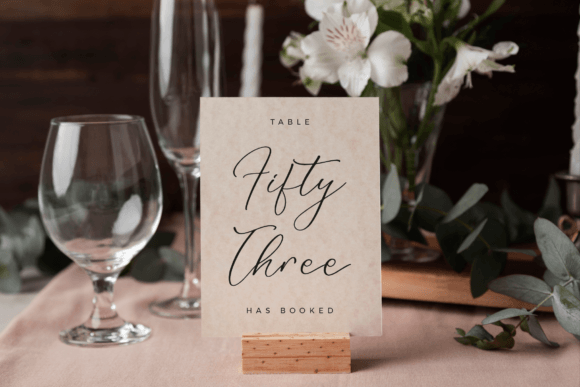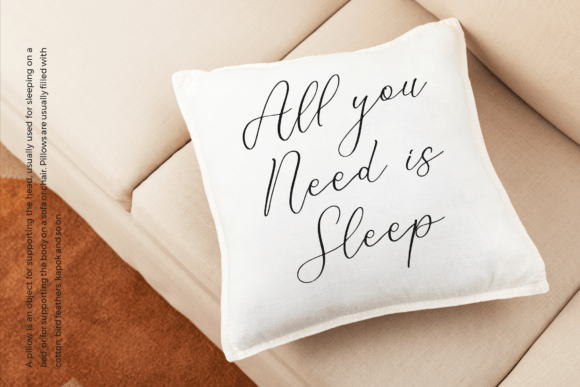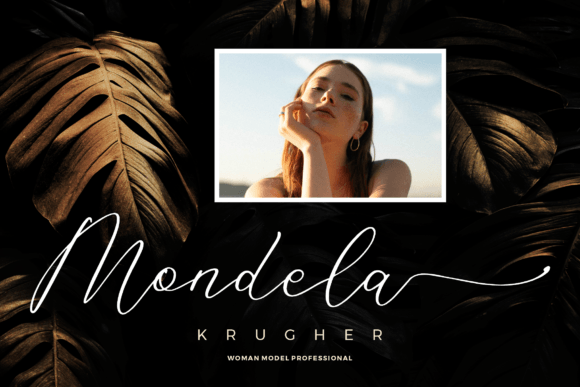
Introduction to Marffiola Vonegliph Font
Marffiola Vonegliph – Stylish Script Font , from Perspectype Studio, suitable for any projects such as: logos, branding projects, homeware designs, product packaging, mugs, quotes, posters, shopping bags, t-shirts, book covers, name card, invitation cards, greeting cards, label, photography, watermark, special events, and all your other lovely projects that need a beautiful script taste.
Why Choose Marffiola Vonegliph Font?
Marffiola Vonegliph Font offers exceptional quality and versatility, making it a valuable addition to your design toolkit. Whether you’re creating for personal projects or commercial use, Marffiola Vonegliph Font delivers professional results.